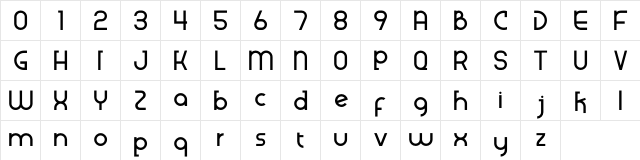
Klenik. Regular
Design Context for Klenik. Typeface
Klenik. offers clean, dependable letterforms without strong stylistic allegiance, making it a practical choice for designers who need flexibility.